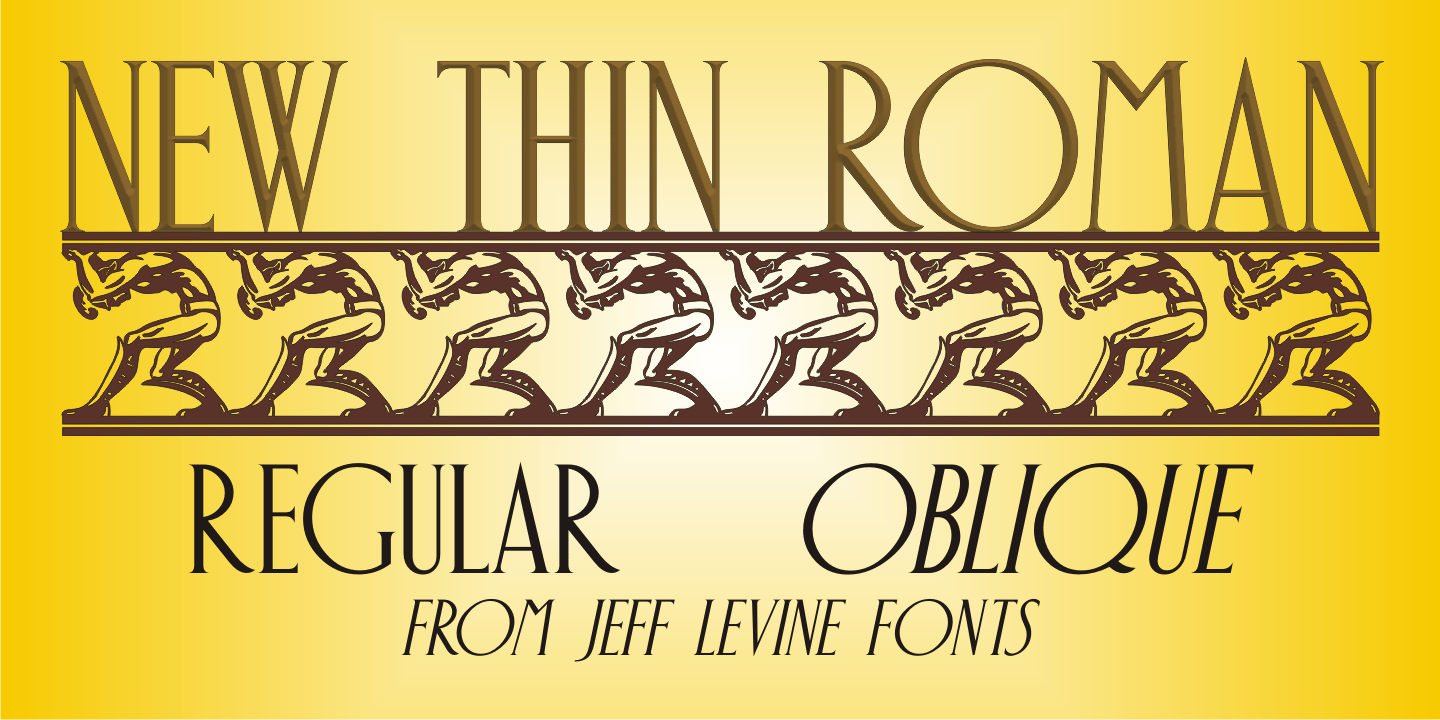
New Thin Roman
The 1912 publication 'Essentials of Lettering” has an example of a hand lettered, condensed spurred serif design called 'Compressed Roman”.
This is now available digitally as New Thin Roman JNL in both regular and oblique versions.
New Thin Roman by Jeff Levine Fonts